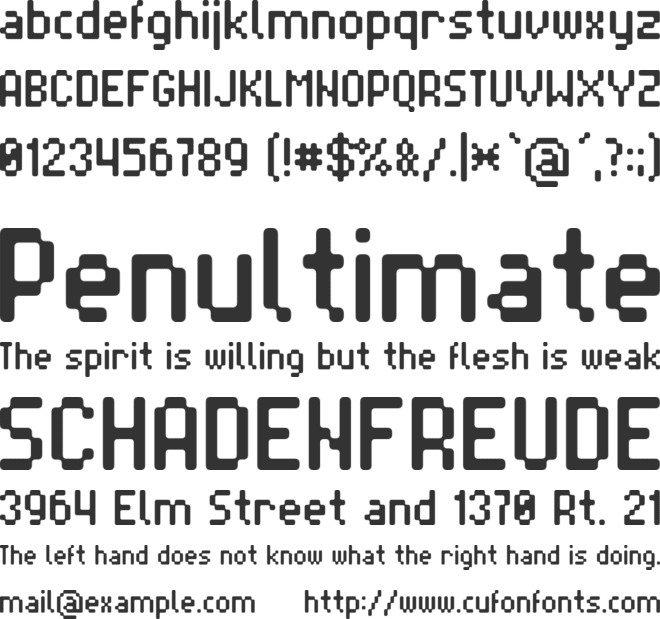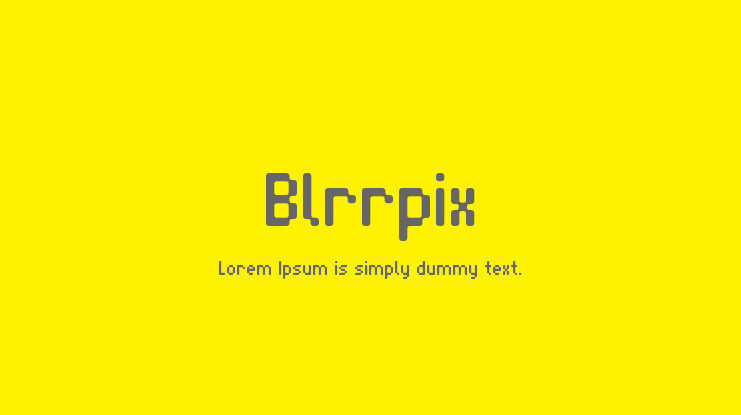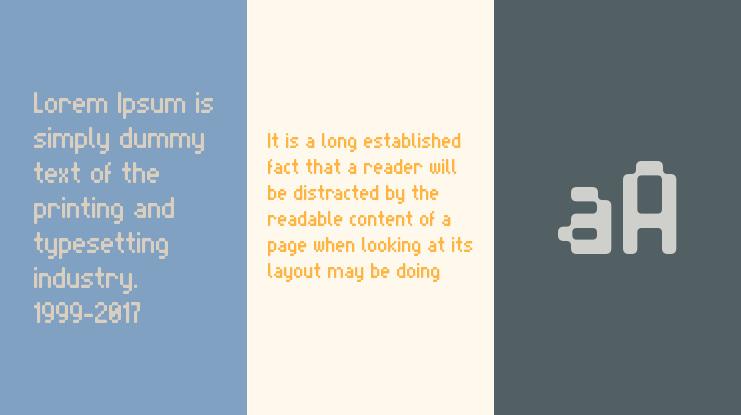
Blrrpix Font
Vít Čondák
An immitation of a bitmap font. What (hopefully) distinguishes it from the rest of similar fonts are the blurred edges of every pixel.